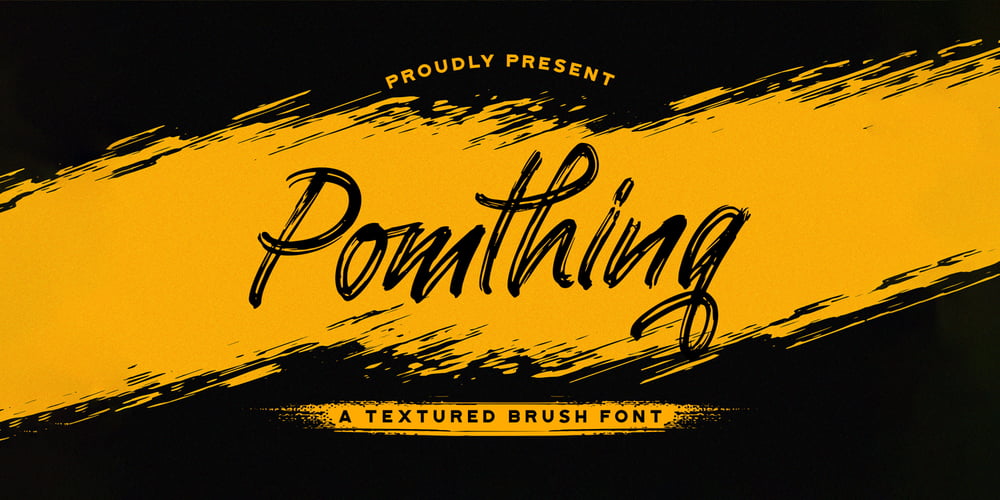
Pomthinq
Pomthinq font
Pomthinq Font Family was designed by Virgiawan Listanto and published by Stringlabs Creative Studio. Pomthinq contains 1 styles and family package options. Pomthinq is a remarkable brush script font. Fall in love with its incredibly versatile style and use it to create spectacular designs!